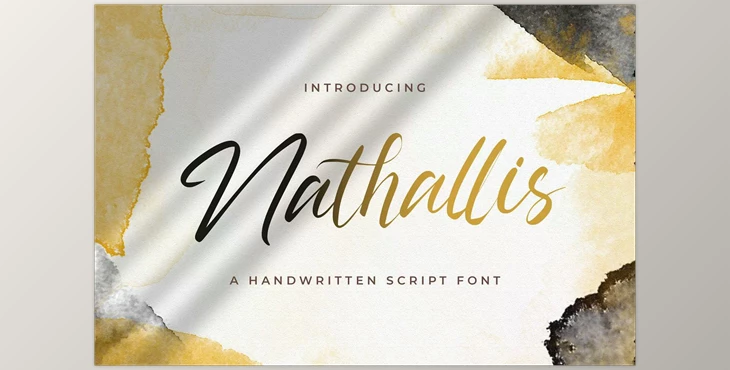
Nathallis – Handwritten Font CreativeMarket 5914289: Nathallis is a soft elegant and flowing handwritten font that is elegant, and flowing. It is a beautiful font with well-balanced characters. As the result, it is compatible with an array of styles. Include it in your most imaginative concepts and observe how it brings them to life!
Some great features of Nathallis – Handwritten Font:
- Ligatures
- Alternates
- The letters are in uppercase as well as Lowercase letters
- Punctuation and Numbering
- Multilingual Support